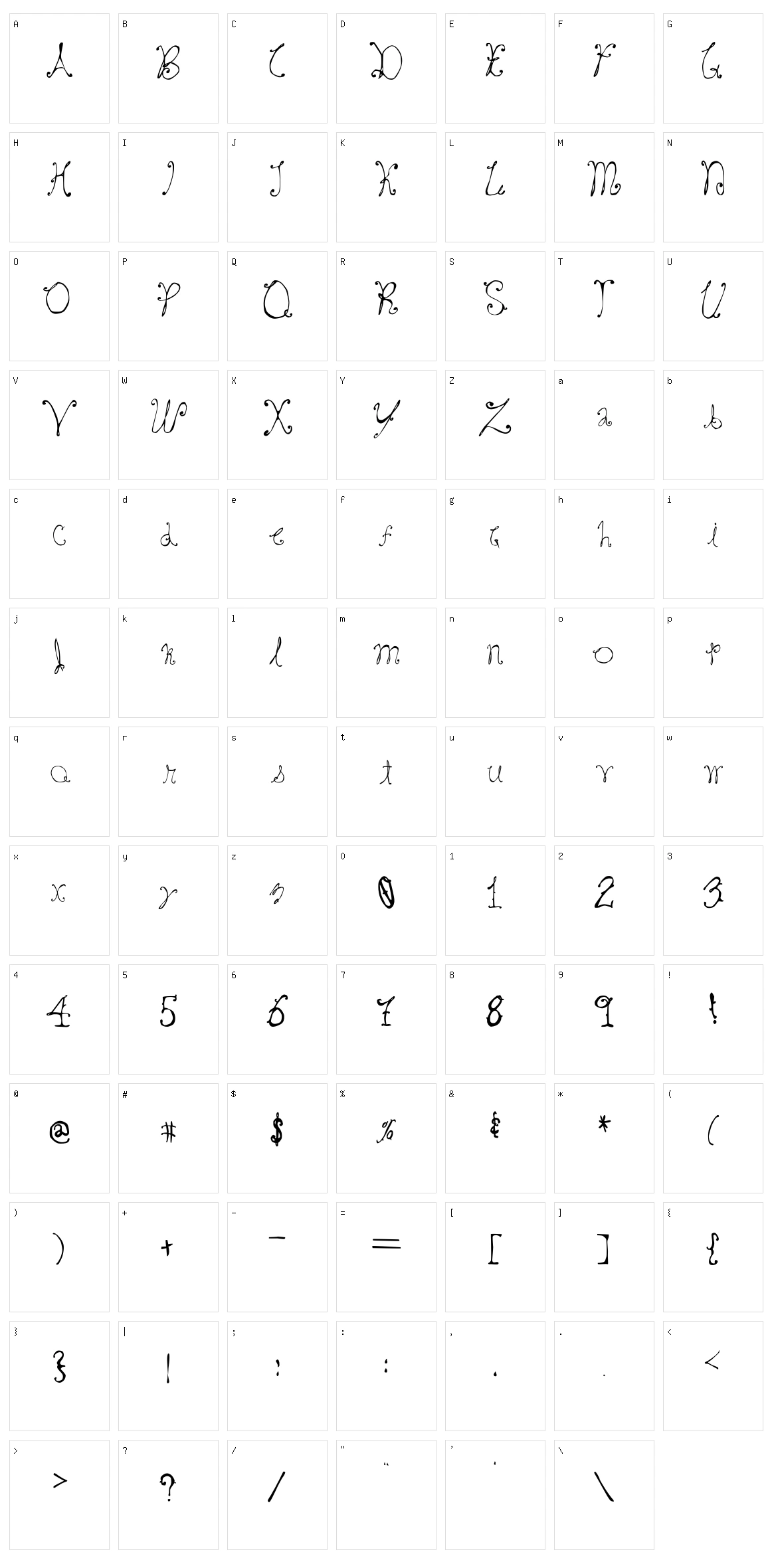
The free font Bray is carefully designed by MrBray, showcasing a thoughtful balance of creativity and usability and falls under the Script font style. When you download the ZIP file, it contains only 25.35 KB of font files, making it lightweight and quick to download. Please review the license details below to understand permitted usage and distribution rights. If license information is not available, we recommend using this font for personal projects only or contacting the author directly for commercial usage permissions.